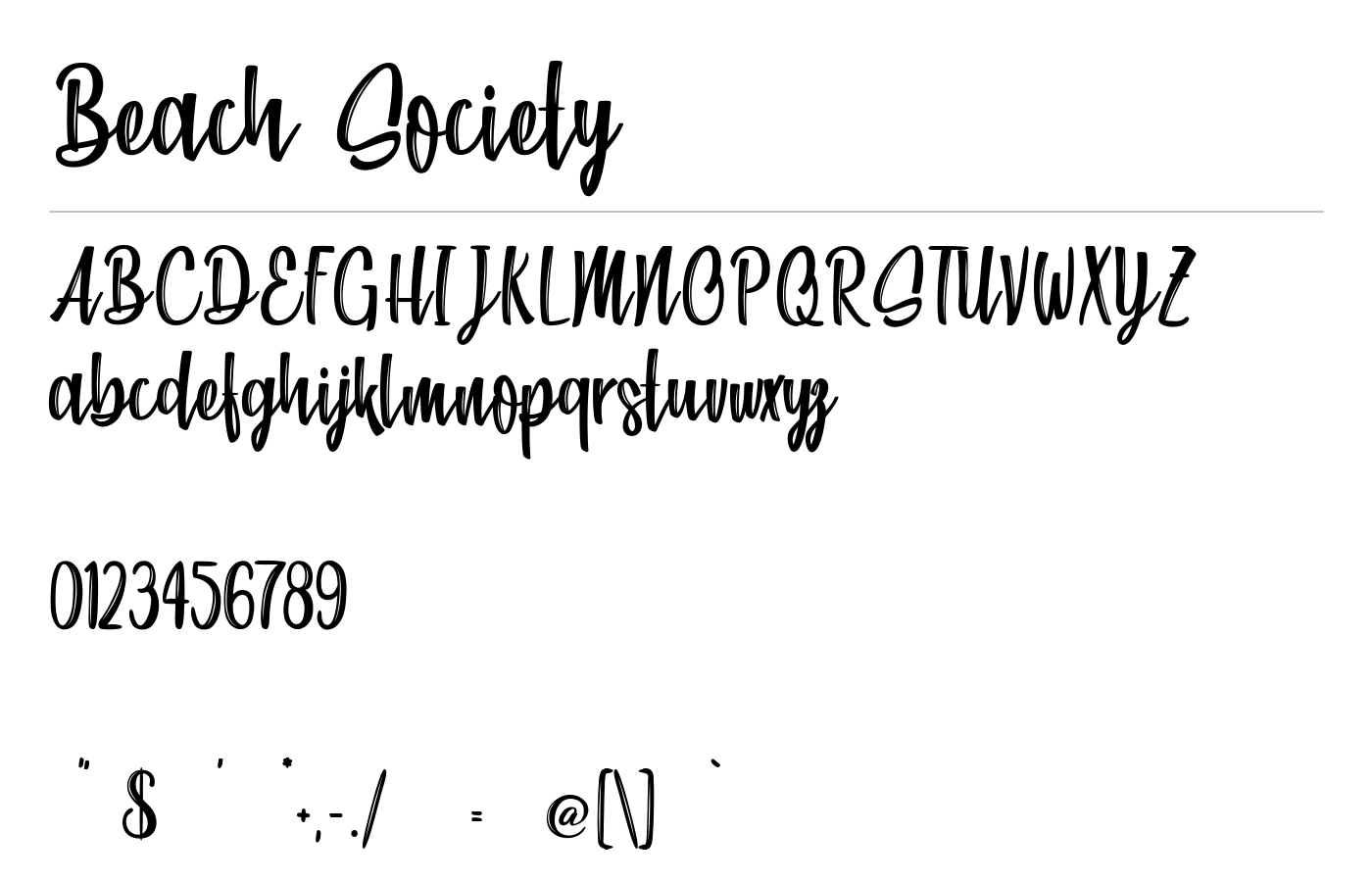
Beach Society is a playful and casual script font with lively, hand-drawn letterforms that bring a friendly and approachable vibe. Its slightly condensed style and moderate contrast give it a smooth, inviting flow perfect for informal branding, lifestyle blogs, and creative packaging. This font works best where a relaxed yet stylish personality is needed, such as beachwear logos and social media graphics.
Beach Society Font
About Beach Society Font